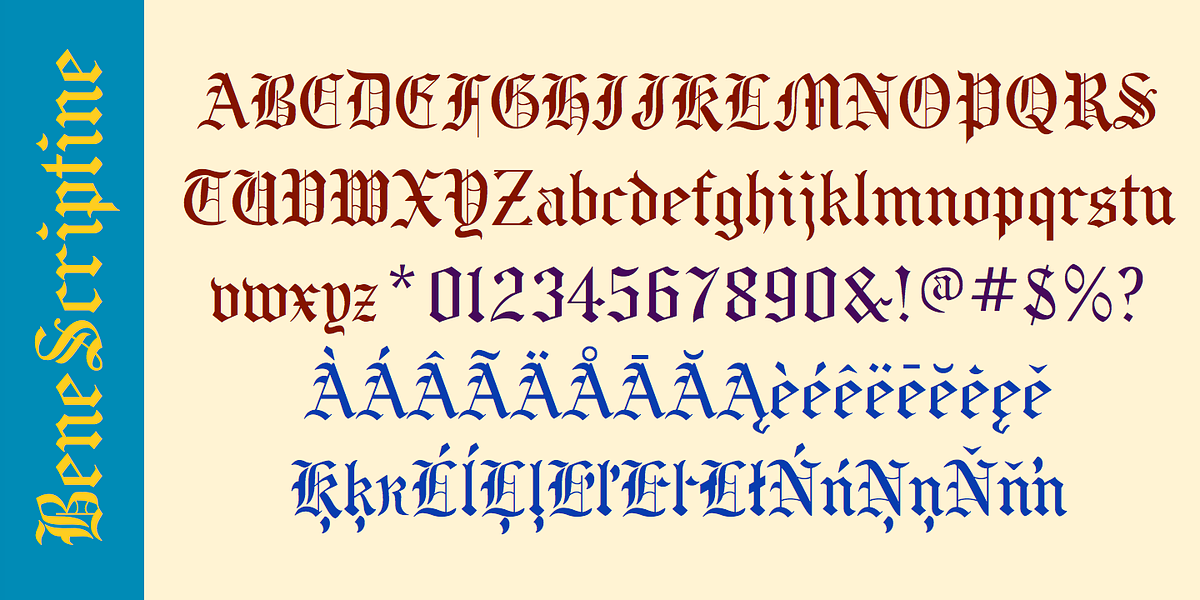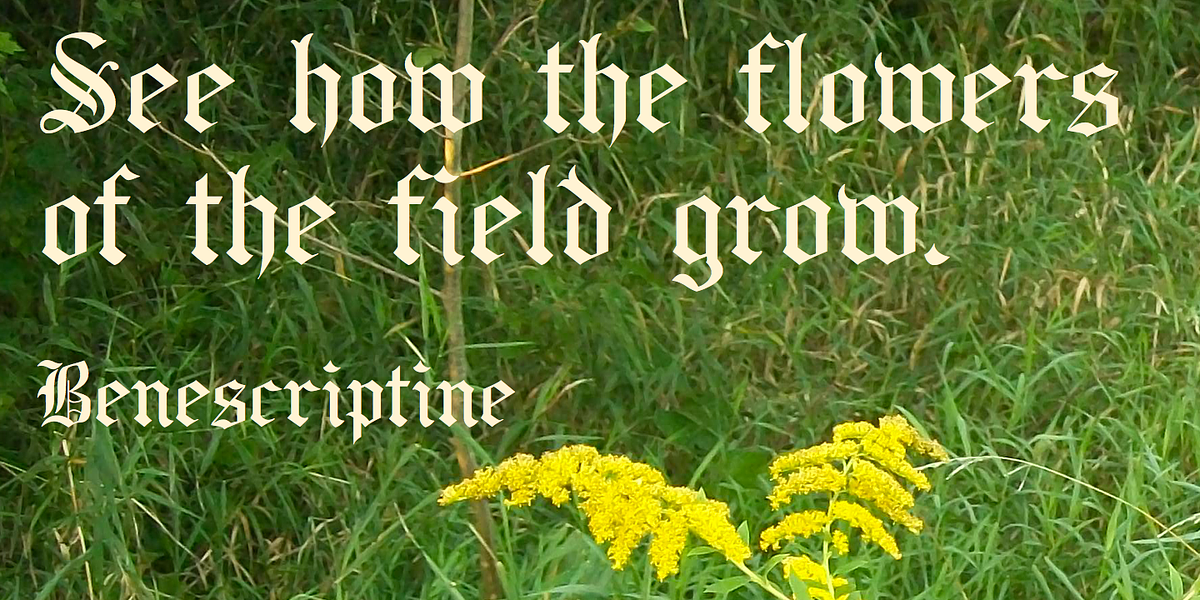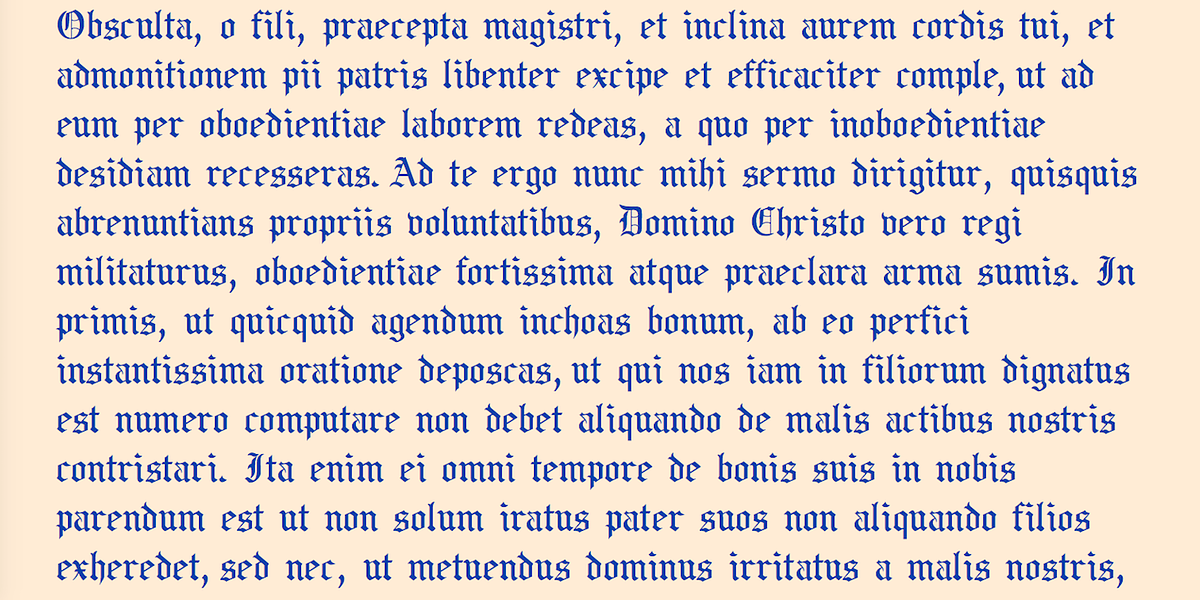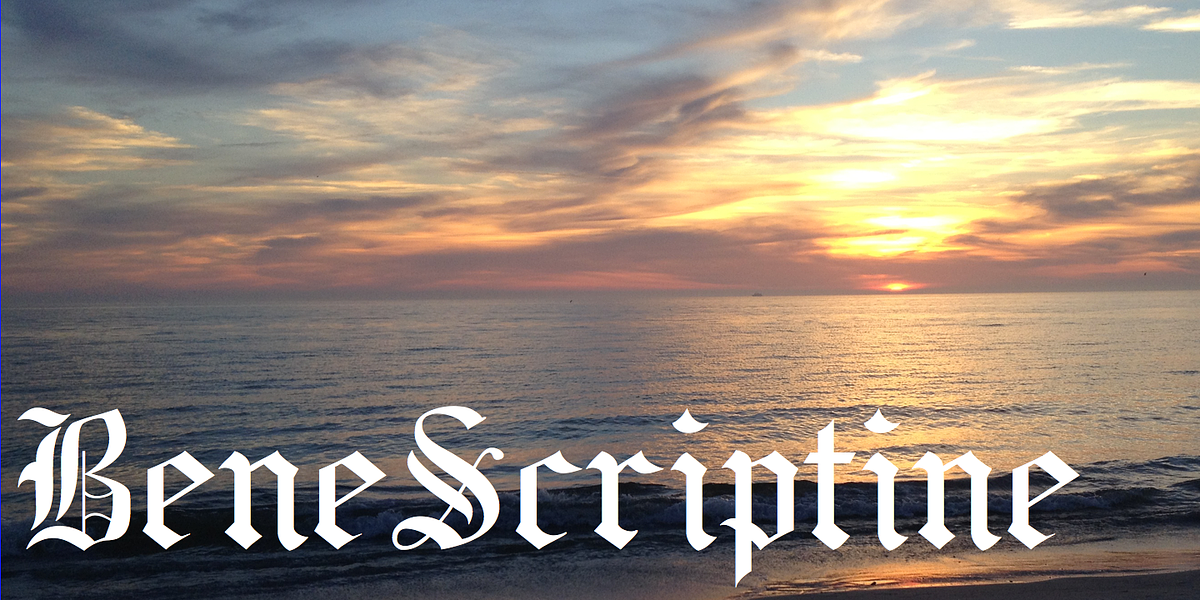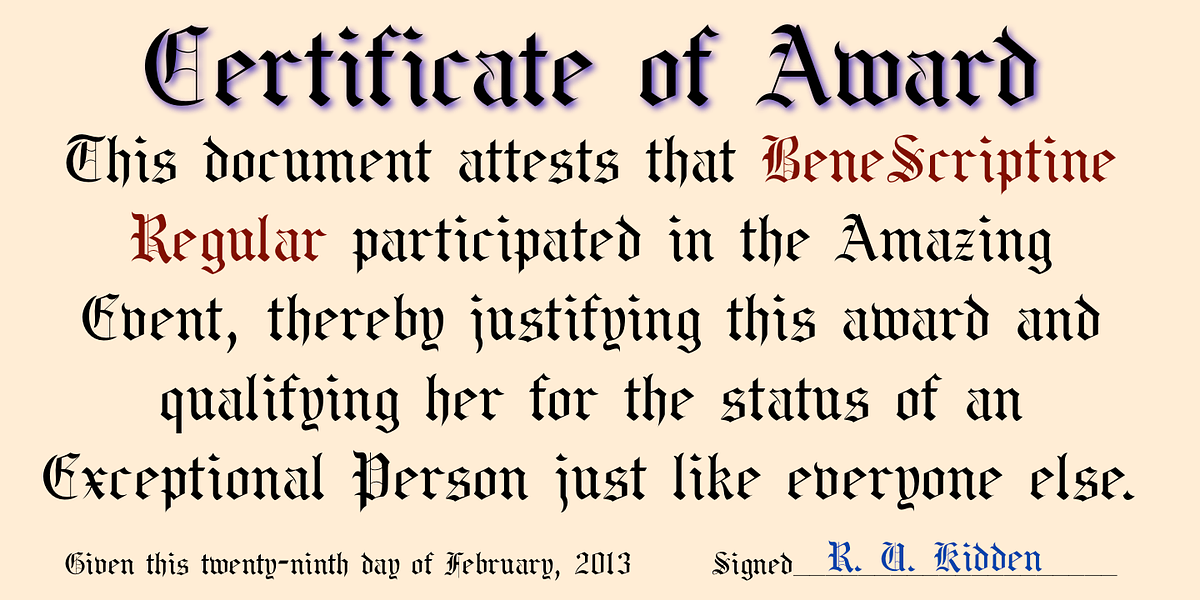
BeneScriptine
BeneScriptine is a blackletter typeface designed in the style of Old English manuscripts. Its distinct characteristics make it well-suited for formal documents such as awards and certificates.